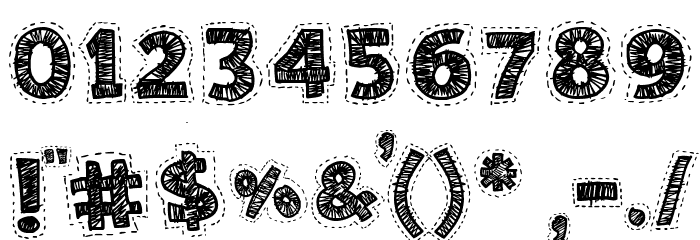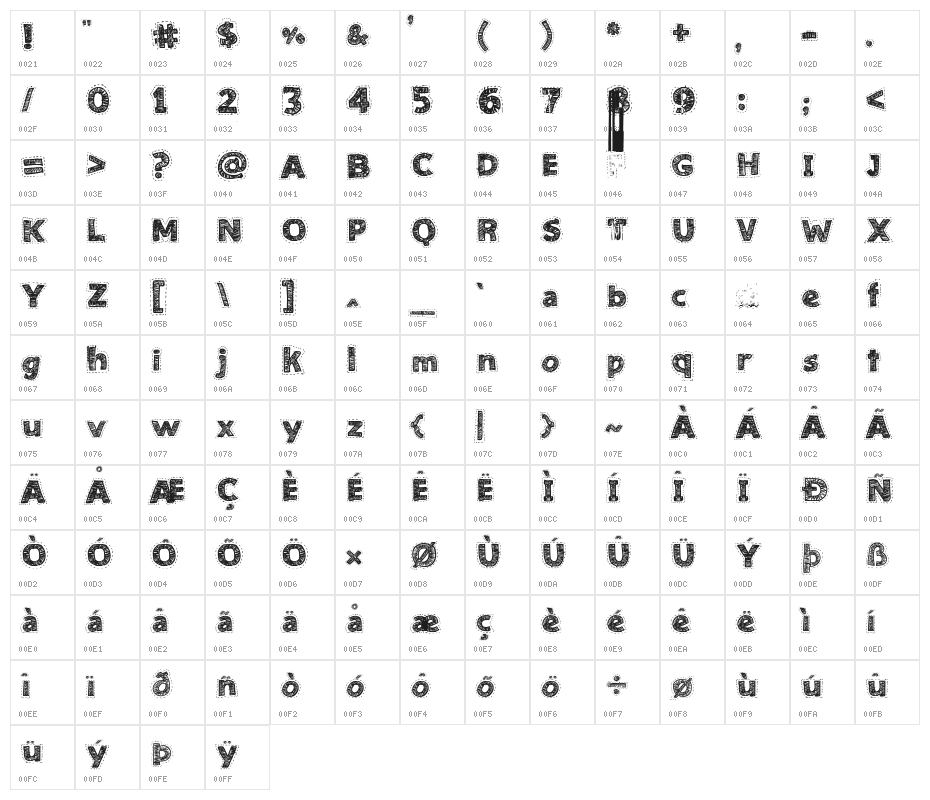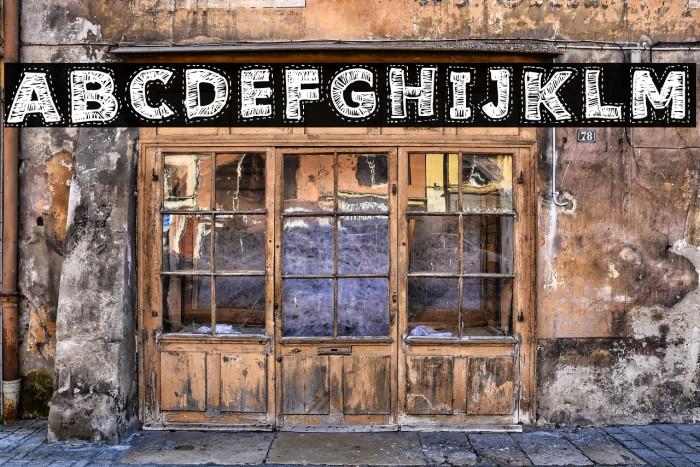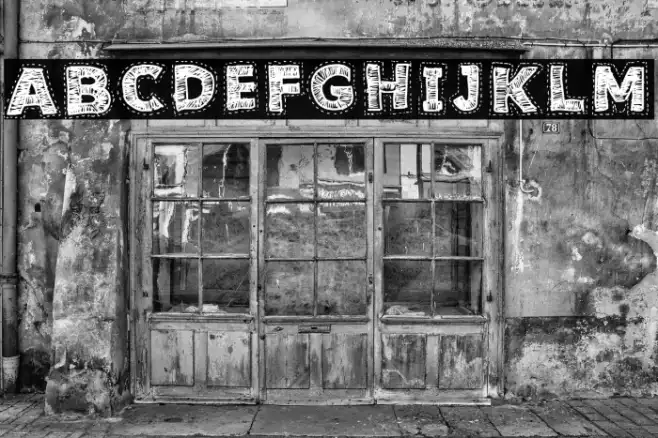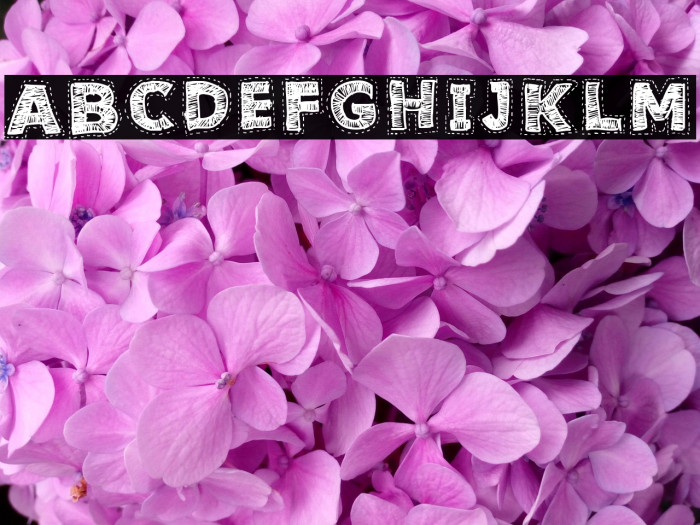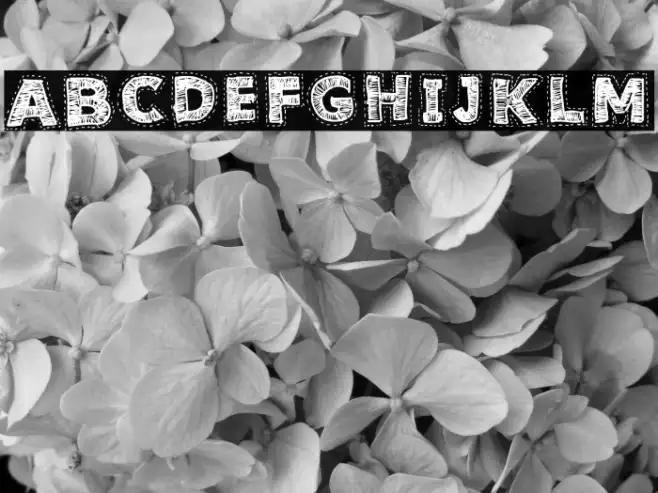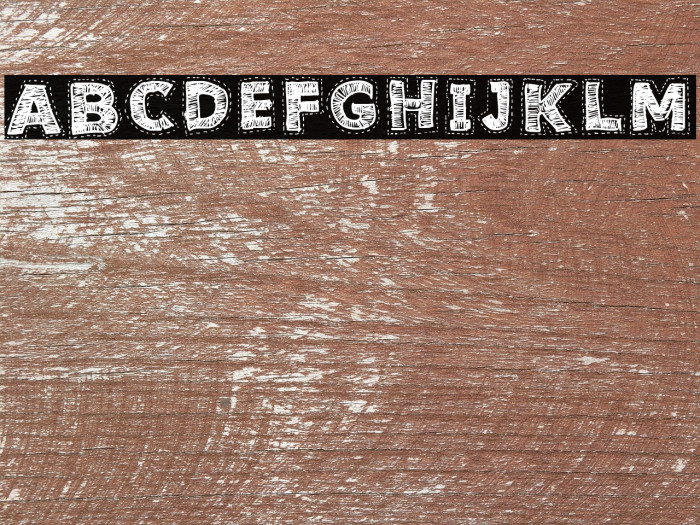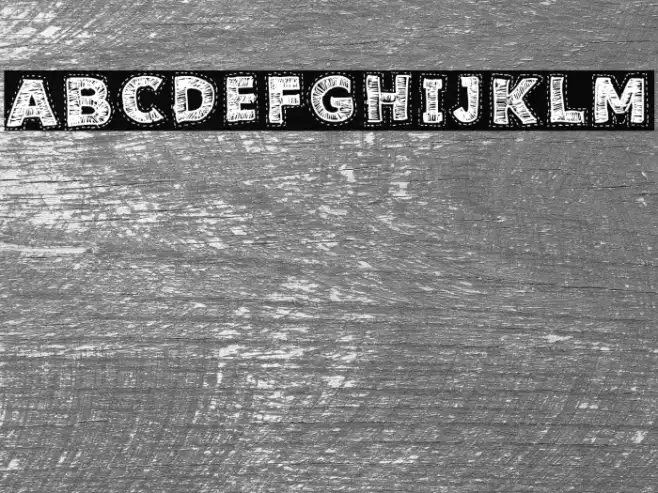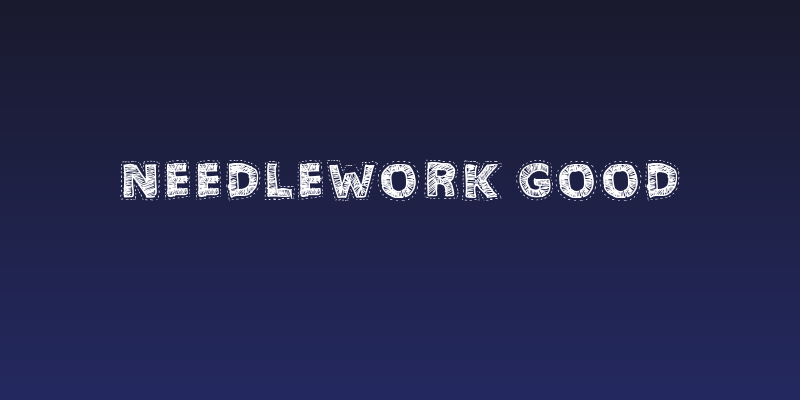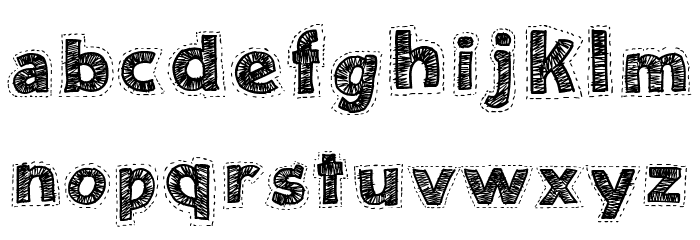
Needlework Good Font
Needlework Good Description
This font features a playful, hand-drawn style that mimics the appearance of stitched or embroidered letters. Each character is outlined with a dashed line, adding a textured, crafty feel. The letters are bold and slightly irregular, giving them a whimsical and informal appearance. The font includes both uppercase and lowercase letters, numbers, and a variety of special characters, all maintaining the same stitched aesthetic. The overall look is reminiscent of DIY projects or handmade crafts, making it ideal for creative and artistic designs.
| Use Case | Headlines, Logos, Craft projects |
| Proposed Projects | Perfect for craft projects, children's books, DIY-themed designs, and playful branding. |